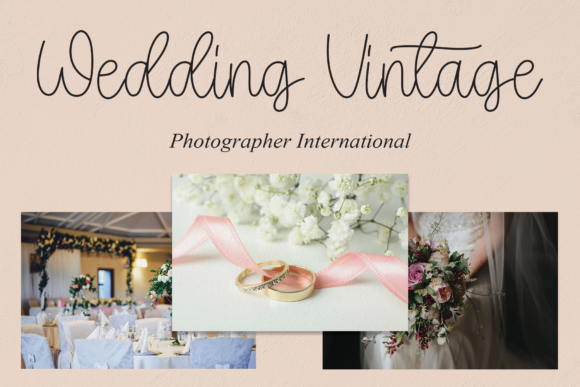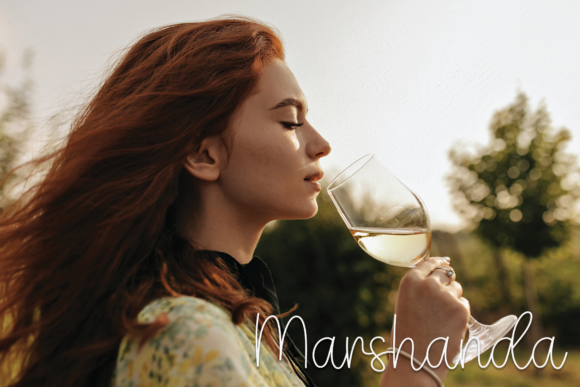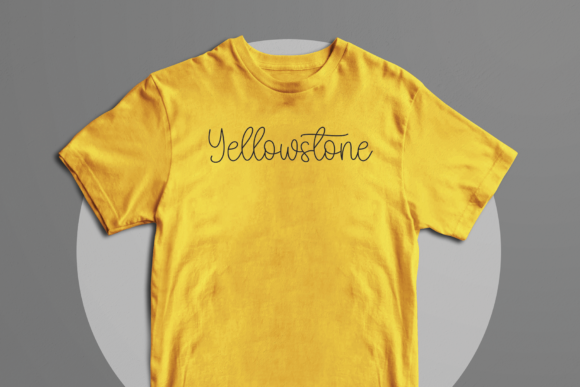
About Butter Sweet Font
Butter Sweet is a delicate and thin lettered script font. Fall in love with its incredibly versatile style and use it to create gorgeous wedding invitations, beautiful stationary art, eye-catching social media posts, and much more!